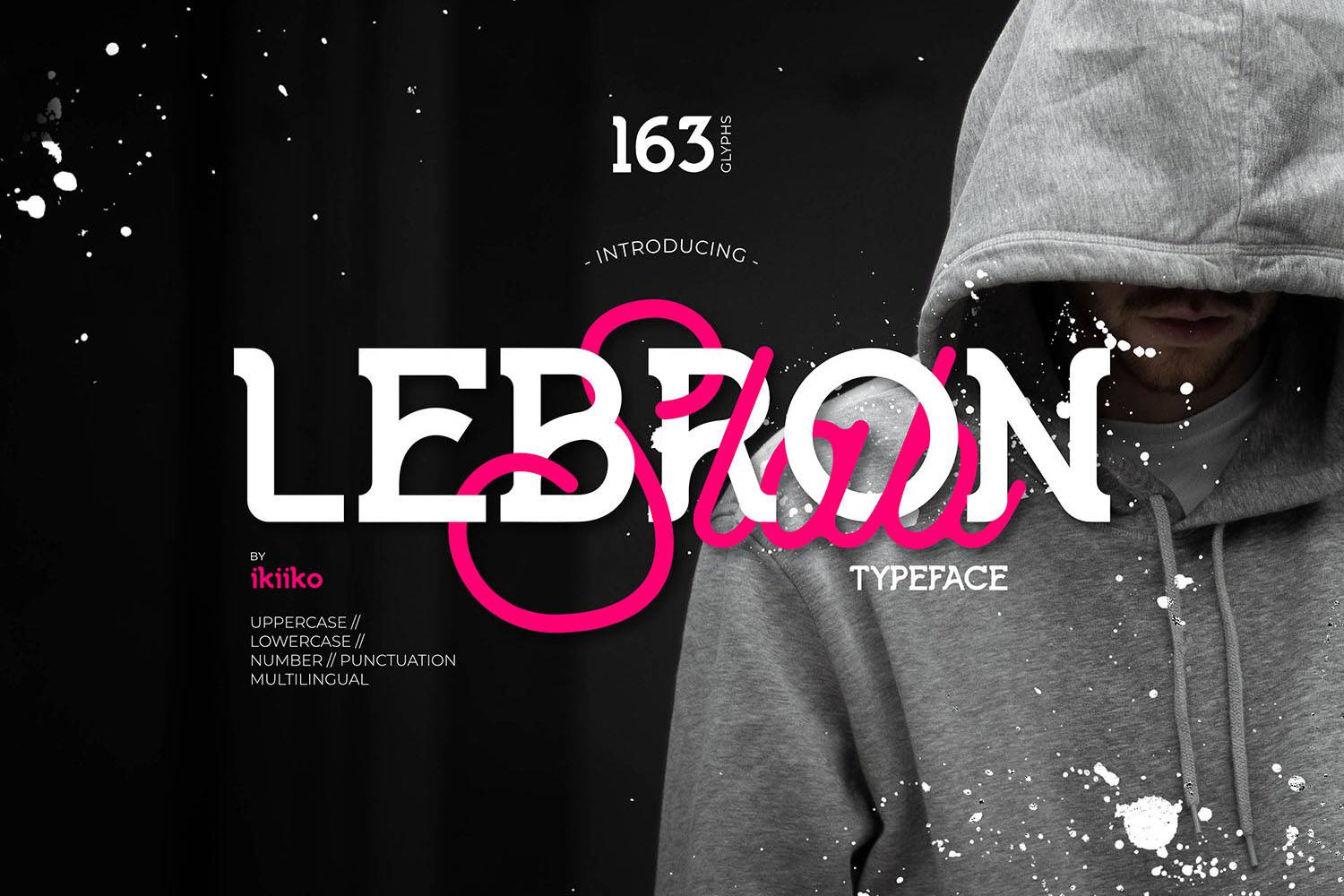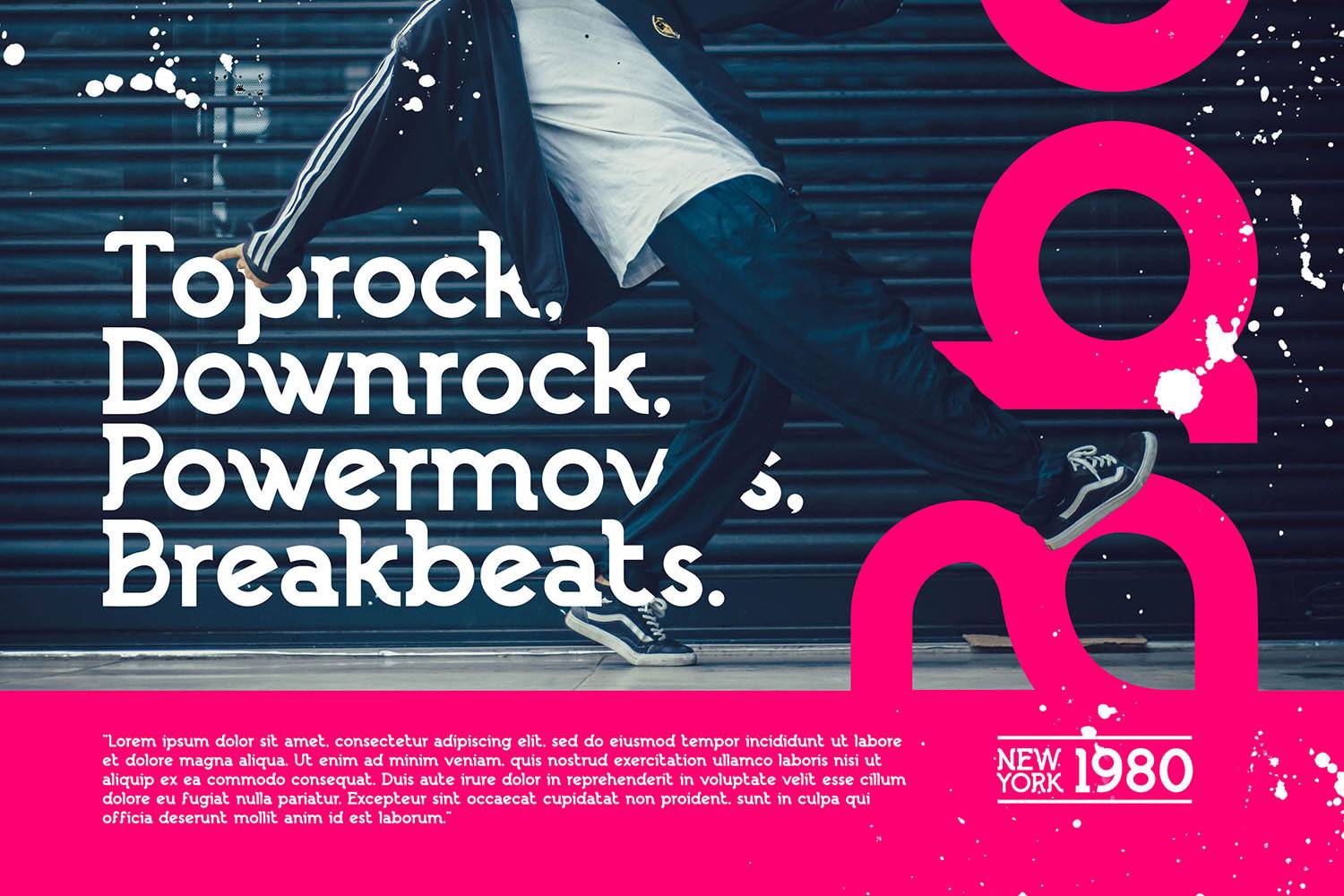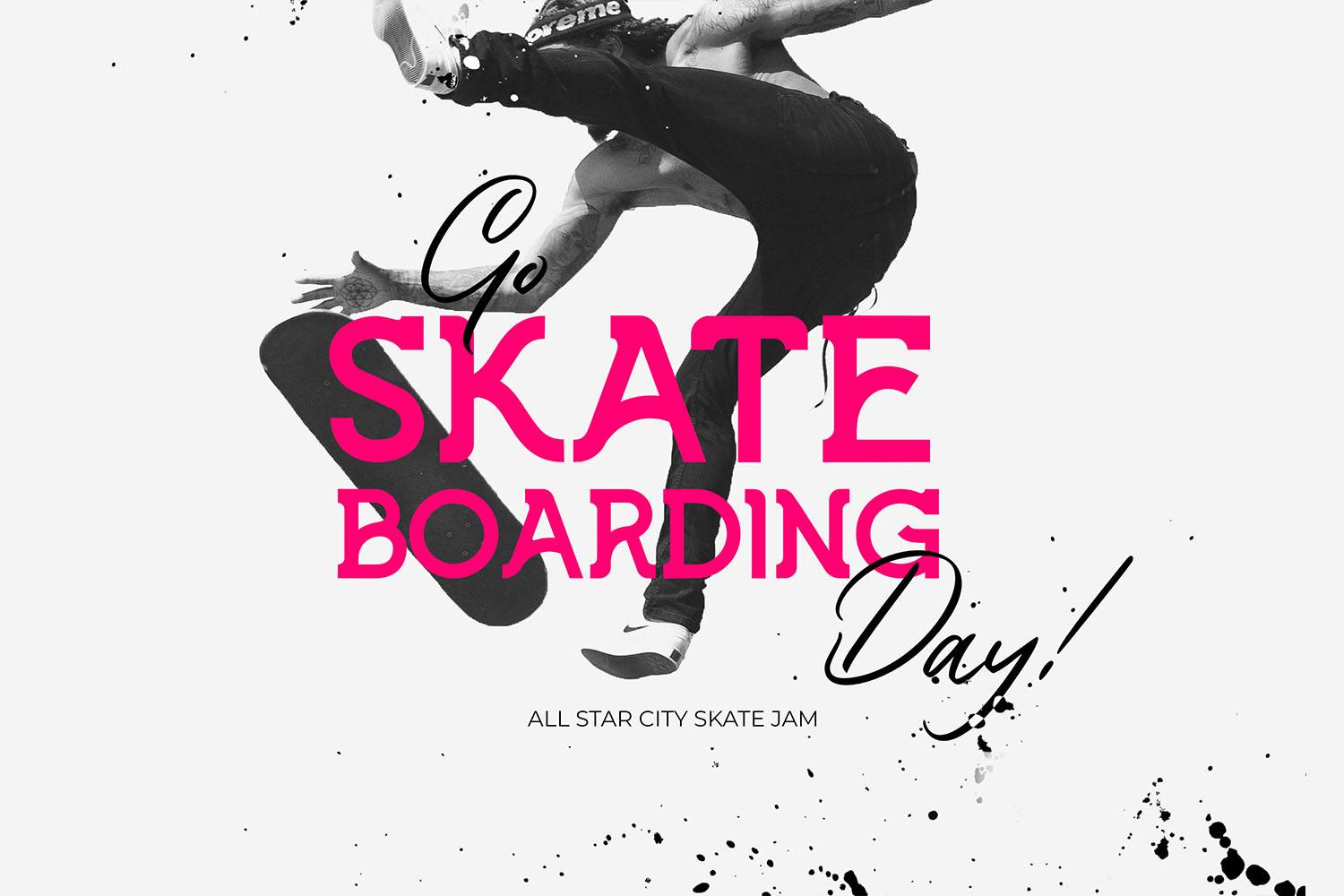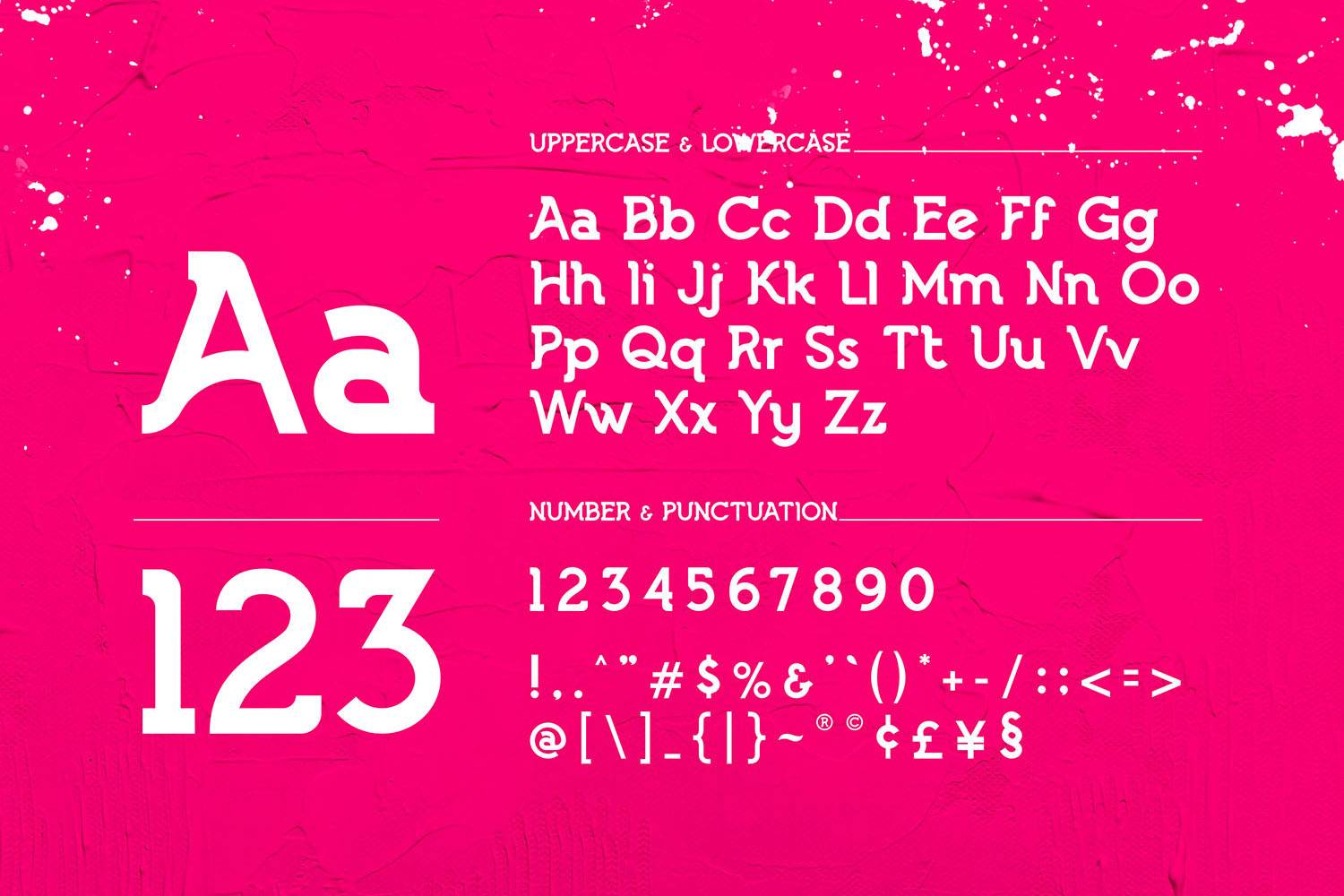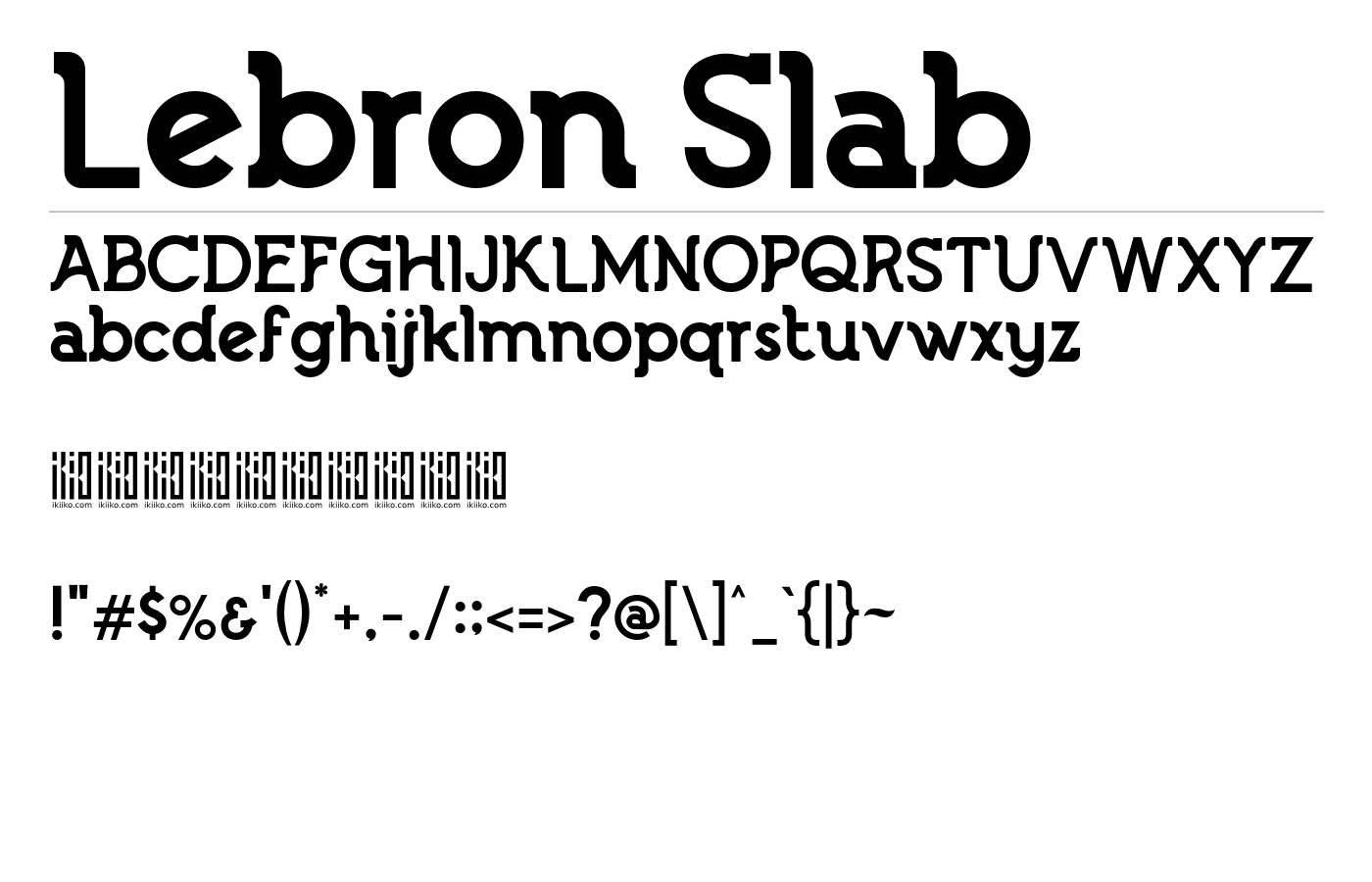
Lebron Slab is a distinctive slab serif font that features bold, sturdy letterforms with strong, bracketed serifs and a playful yet confident character. Its medium contrast and unique, slightly quirky shapes create a modern vintage feel, making it ideal for headlines, branding, and editorial use where a blend of strength and personality is desired. This font works well for creative projects that require a touch of uniqueness without sacrificing readability.
Lebron Font
About Lebron Font
| Font family | Lebron Font |
| Category | Slab-serif |
| Release date | 2021-09-14 |
| Designer | ikiikowrk |